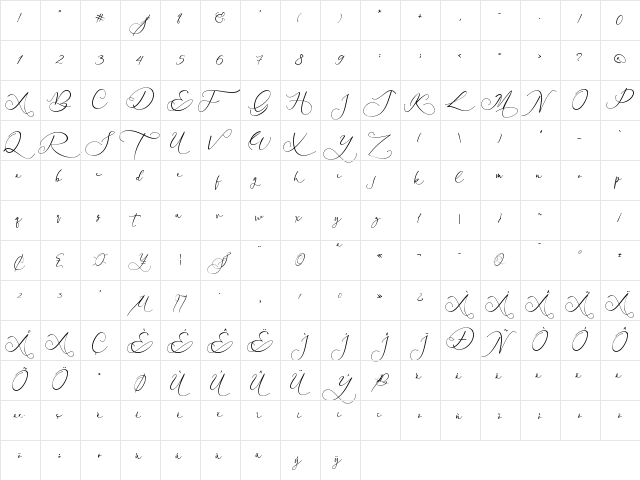
Mariagata Regular
| Designer | Letterara 2019 |
Design Context for Mariagata Typeface
Mariagata is a composed and adaptable typeface that performs quietly and consistently across a wide range of design contexts.